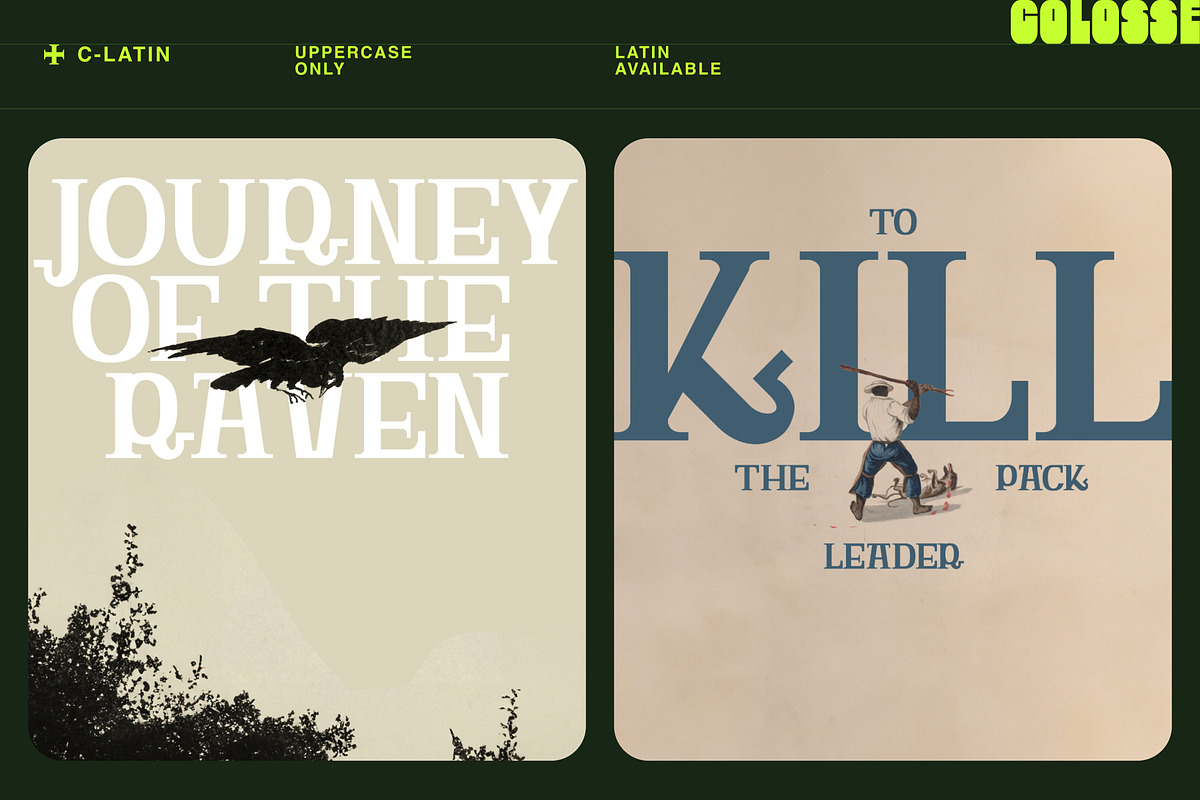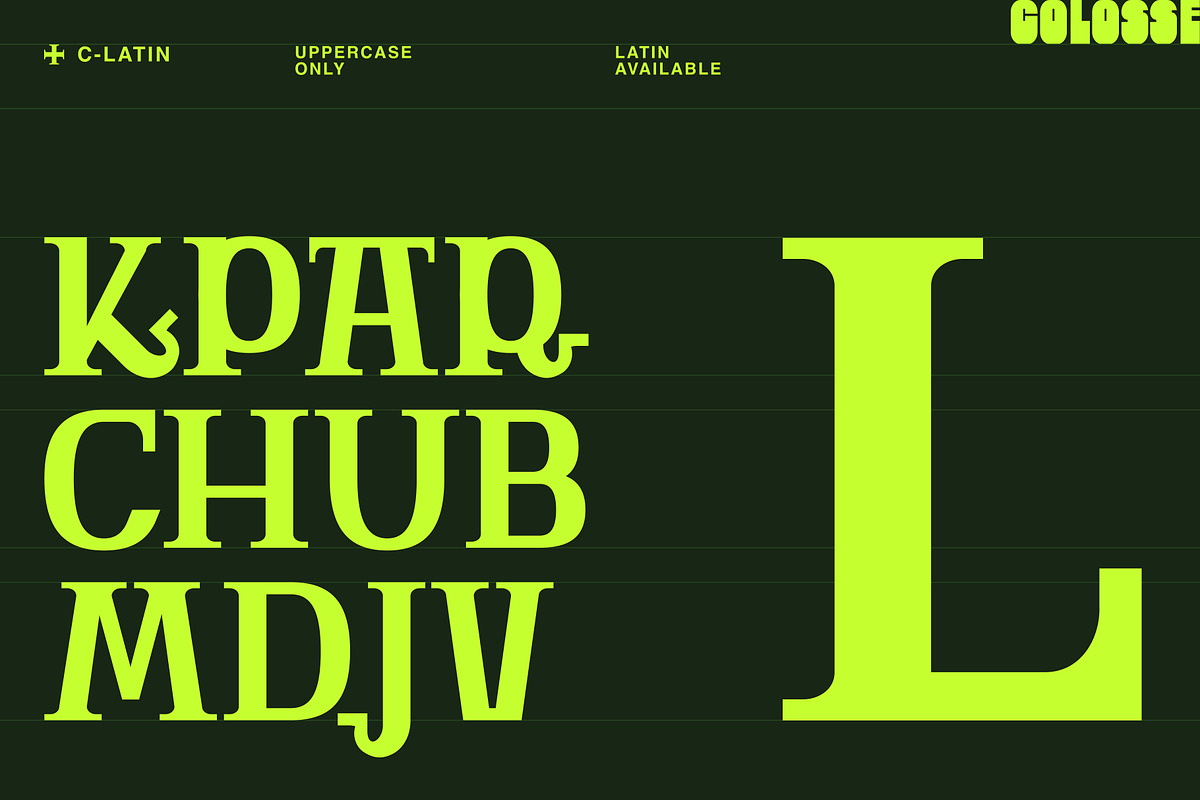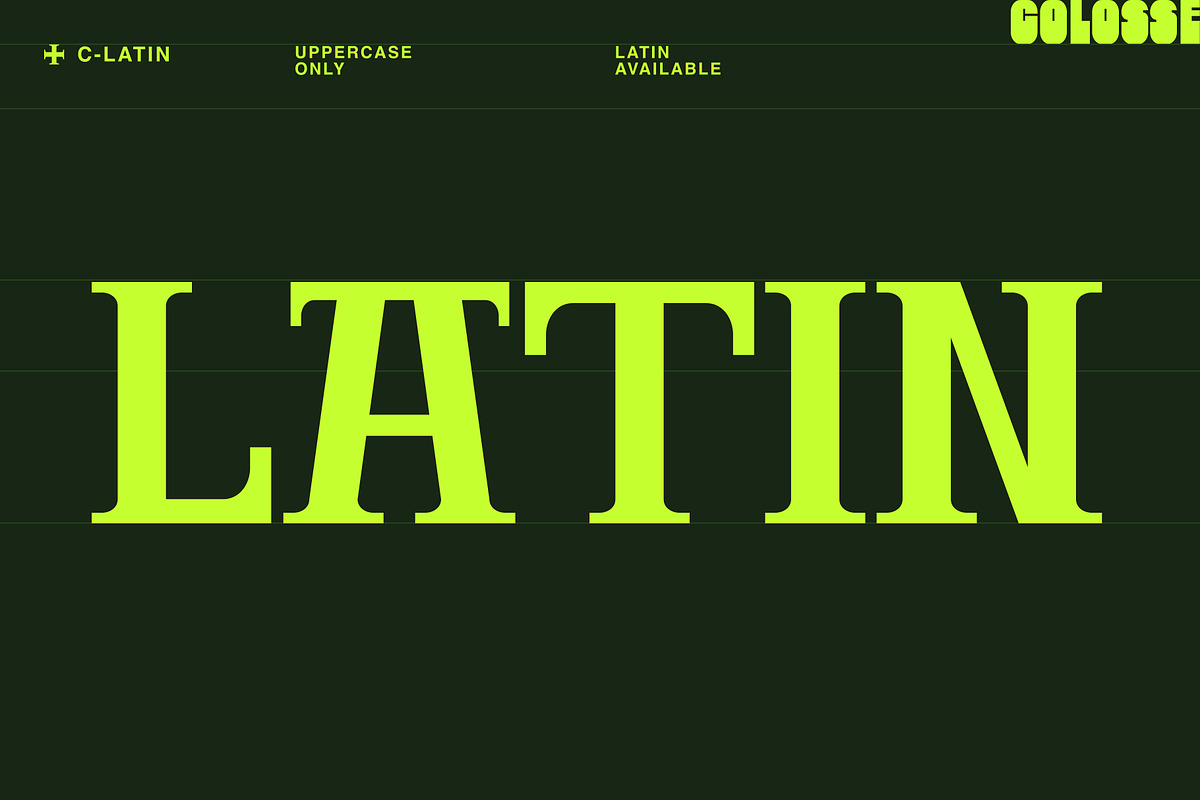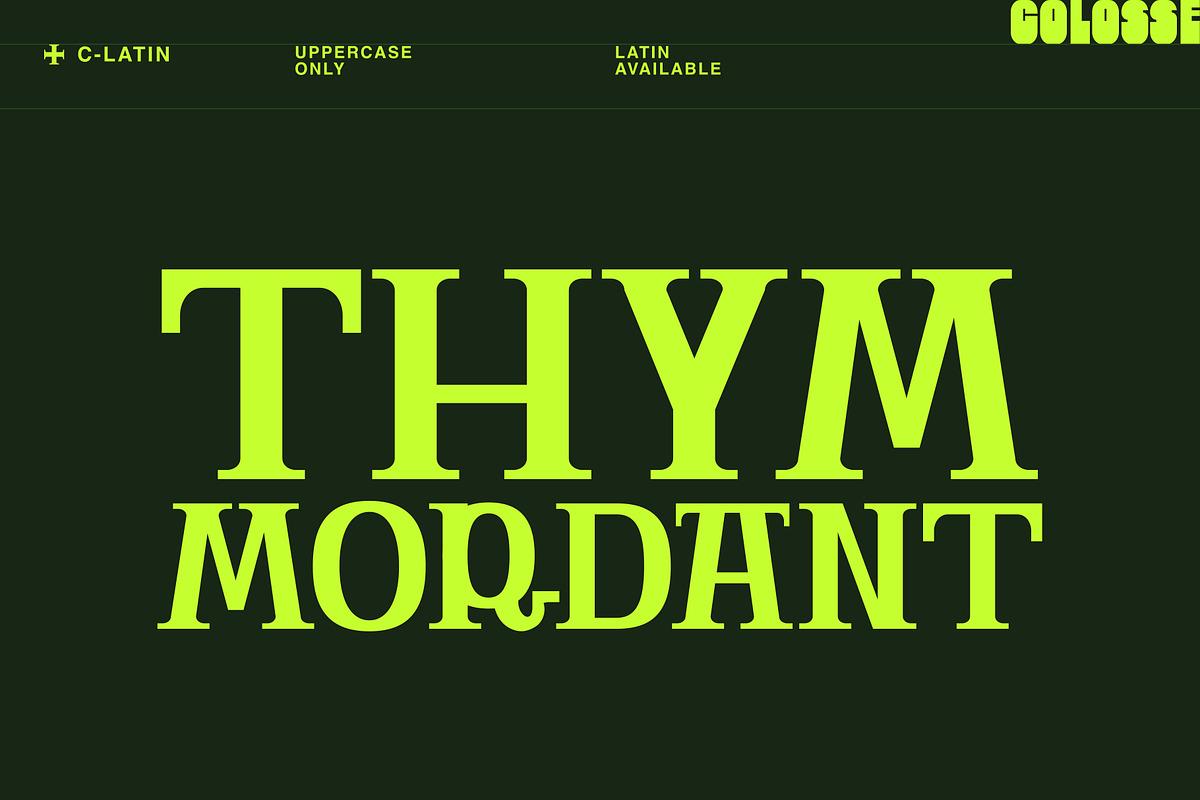
c-latin display type
c-latin is a serif font that blends classical elegance with a unique twist, thanks to its unusual glyphs. Rooted in tradition, this typeface adds a touch of eccentricity to timeless letterforms. With refined shapes and surprising details, c-latin stands out while remaining anchored in classic typography.